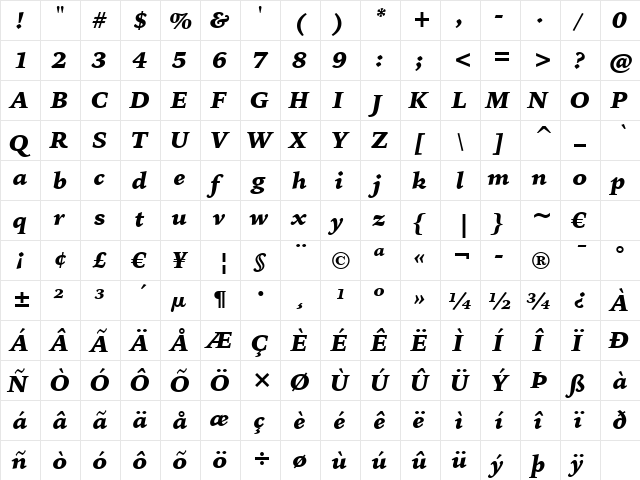
IowanOldSt Blk BT Black Italic
Design Context for IowanOldSt Blk BT Typeface
IowanOldSt Blk BT is a composed and adaptable typeface that performs quietly and consistently across a wide range of design contexts. Its italic angle brings a sense of urgency and motion to the letterforms.
Pro Tip: Use IowanOldSt Blk BT for emphasis, pull quotes, and subheadings where its slanted energy can add rhythm to the layout.